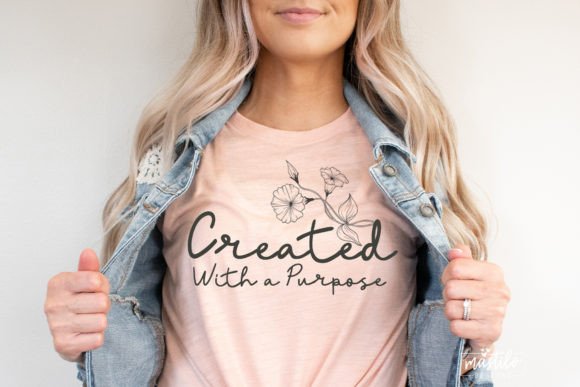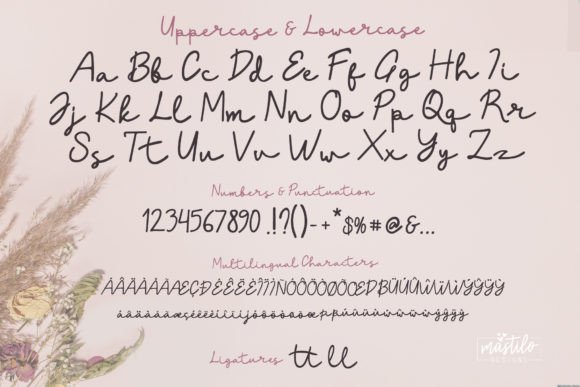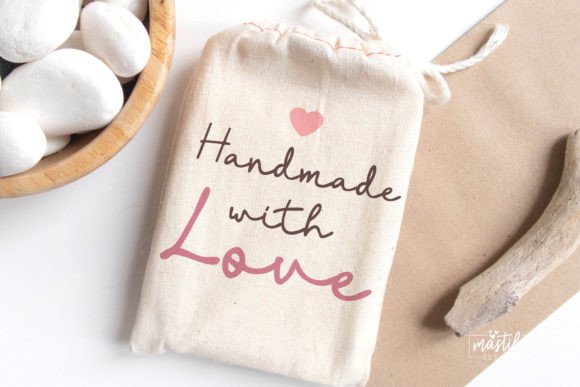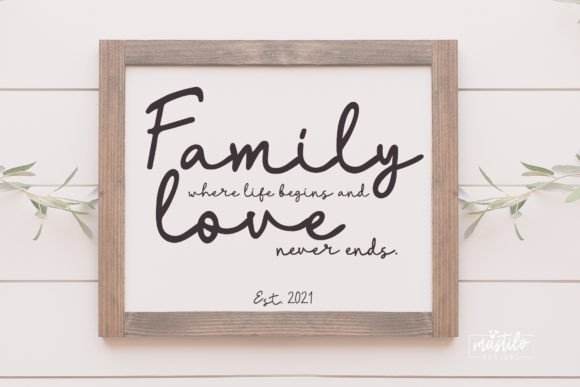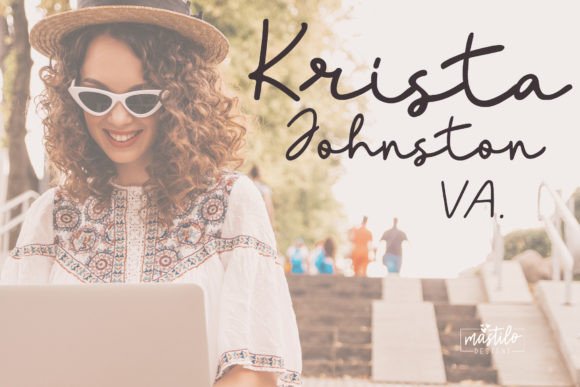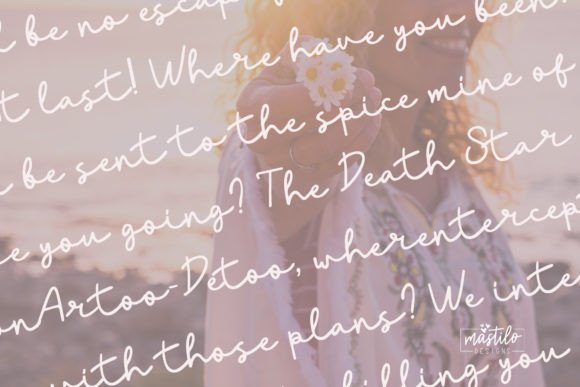
Discover Your Perfect Script: Asthelia Font
Have you ever stared at a blank canvas, waiting for the perfect spark of creativity to strike? The blank page can be intimidating, but what if you had the right tool to bring your ideas to life? That’s where the Asthelia Font comes in – a beautiful, handwritten casual signature script font that exudes boho romance and charm.
Whether you’re a designer, artist, or maker, Asthelia Font is the perfect addition to your creative arsenal. With its versatility and unique touch, you can use it to craft stunning logos, branding, apparel, and social media templates that stand out from the crowd. The Asthelia Font is a valuable asset for any designer looking to add a personal touch to their projects.
- Unique Characteristics: Asthelia Font features a unique blend of modern and elegant design elements, with intricate details and subtle flourishes.
Asthelia Font Review
Asthelia Font is a beautiful, elegant font that works well for a variety of design projects, from wedding invitations to luxury branding. ✨ The font’s subtle flair and refined details give it a sophisticated look that’s sure to impress. ✨ The font is also highly legible, making it perfect for body text or small print.
However, there are some limitations to consider. ⚠️ Asthelia Font can be a bit too ornate for some designs, making it difficult to read in certain contexts. ⚠️ Additionally, the font may require some manual adjustments to achieve the perfect look, as the default spacing and alignment can be a bit off. ⚠️
- Beautiful, elegant design ✨
- Highly legible ✨
- Sophisticated look ✨
- May be too ornate for some designs ⚠️
- Requires manual adjustments for perfect spacing and alignment ⚠️
Overall, I would recommend Asthelia Font for designers who are looking for a high-end, elegant look for their projects. While it may require some extra effort to get it just right, the end result is well worth it. With the right design, Asthelia Font can add a touch of luxury and sophistication to any project.
Asthelia Font is a versatile font that can be used in a variety of contexts, including: